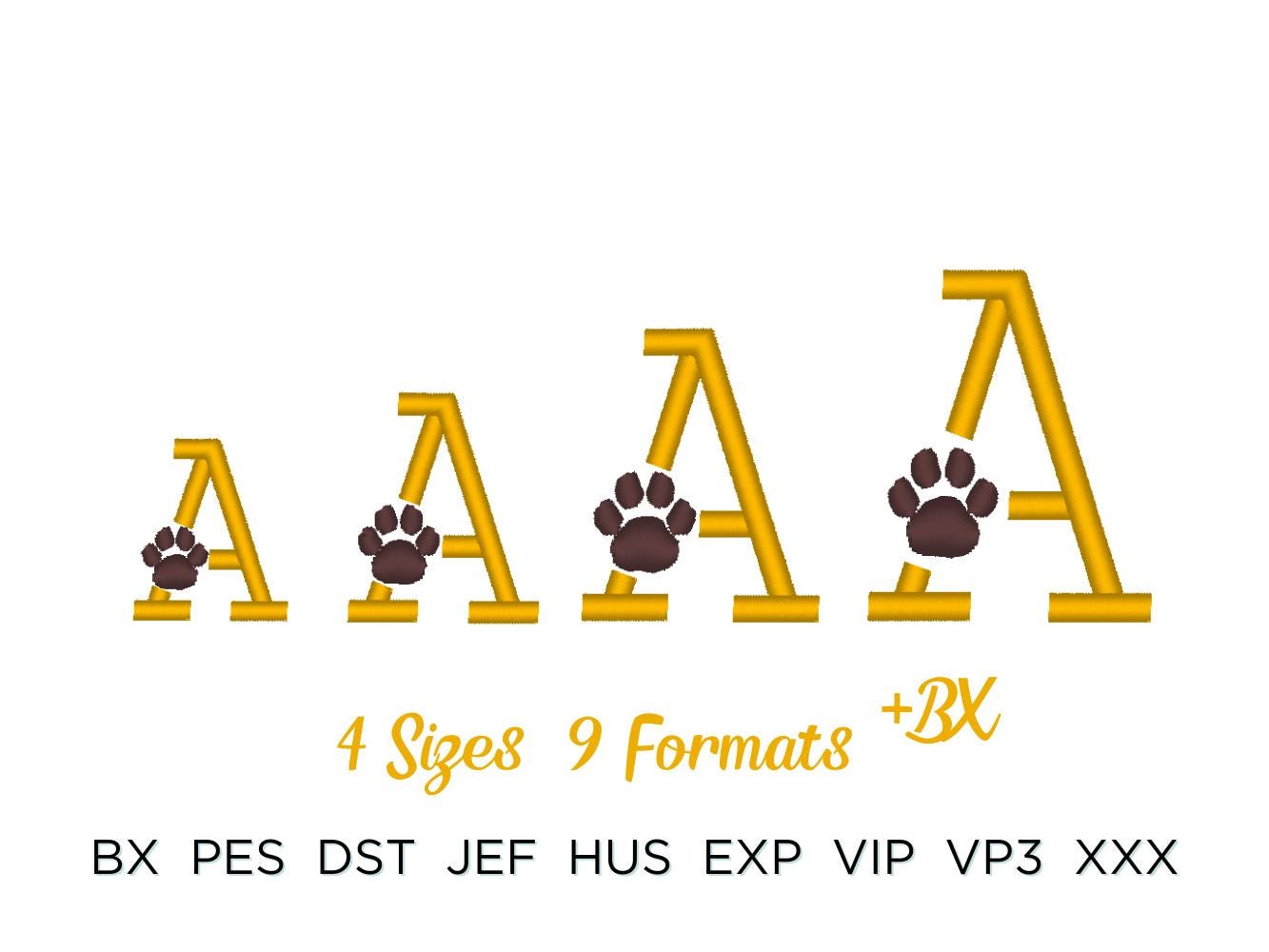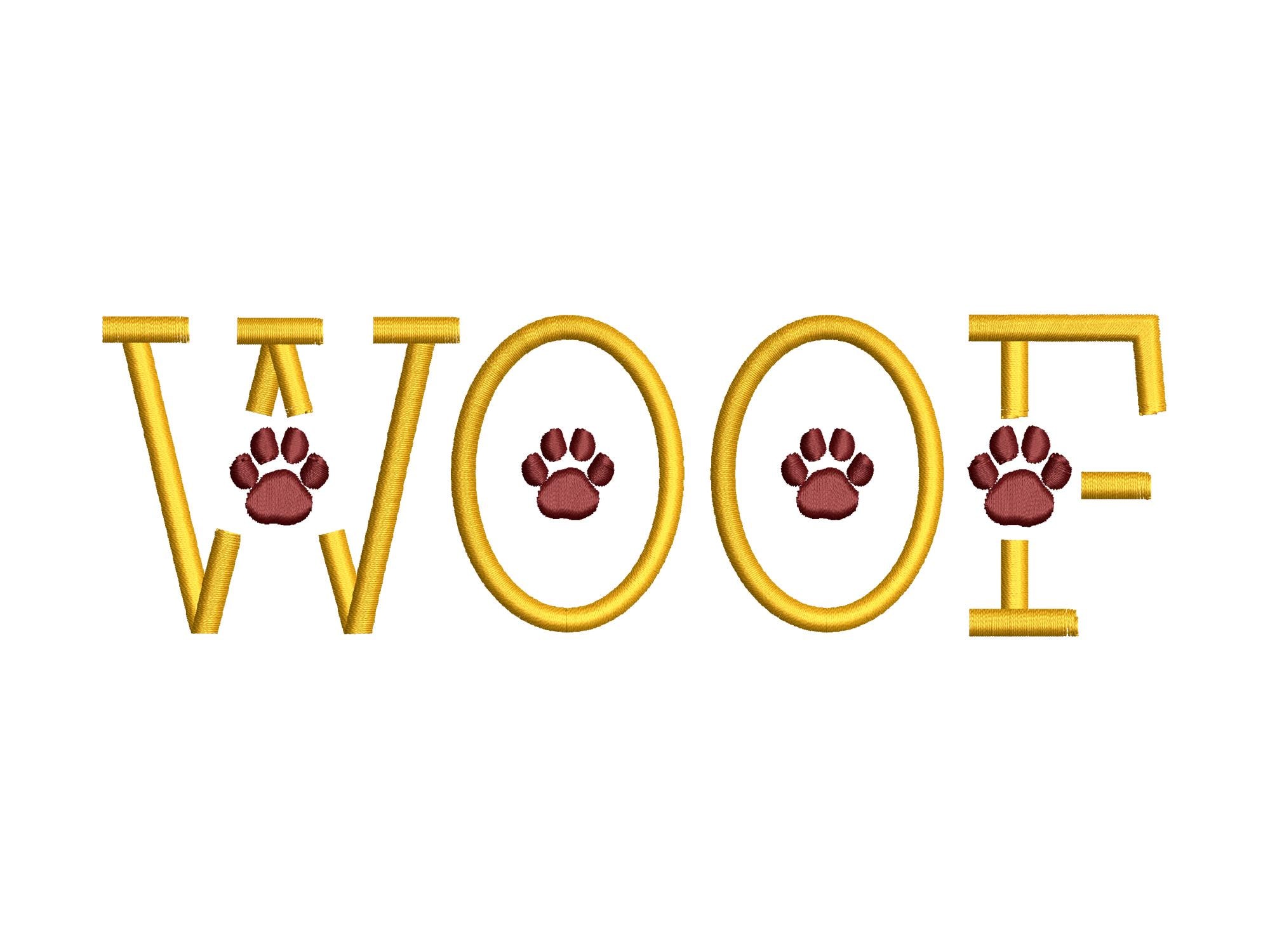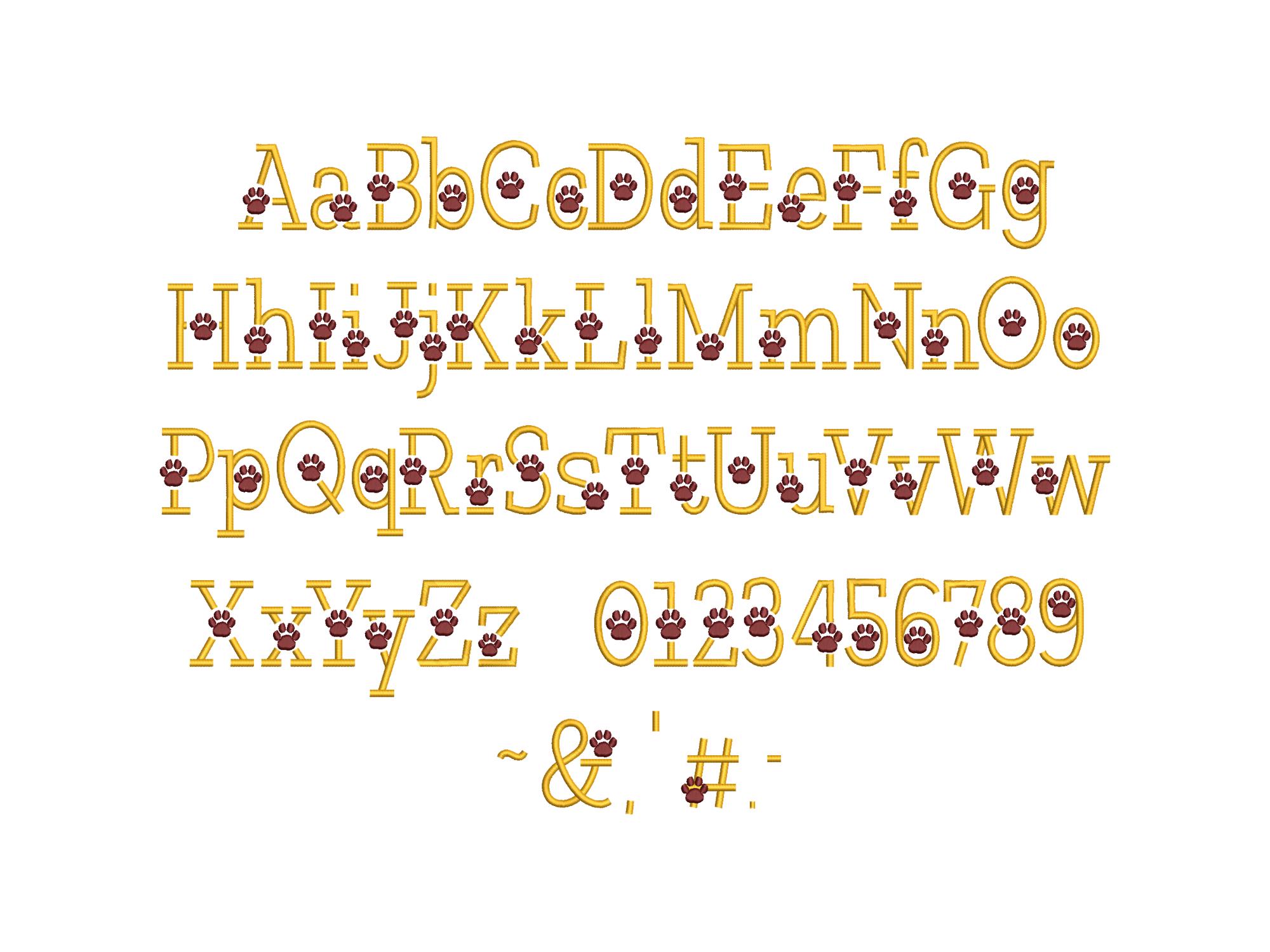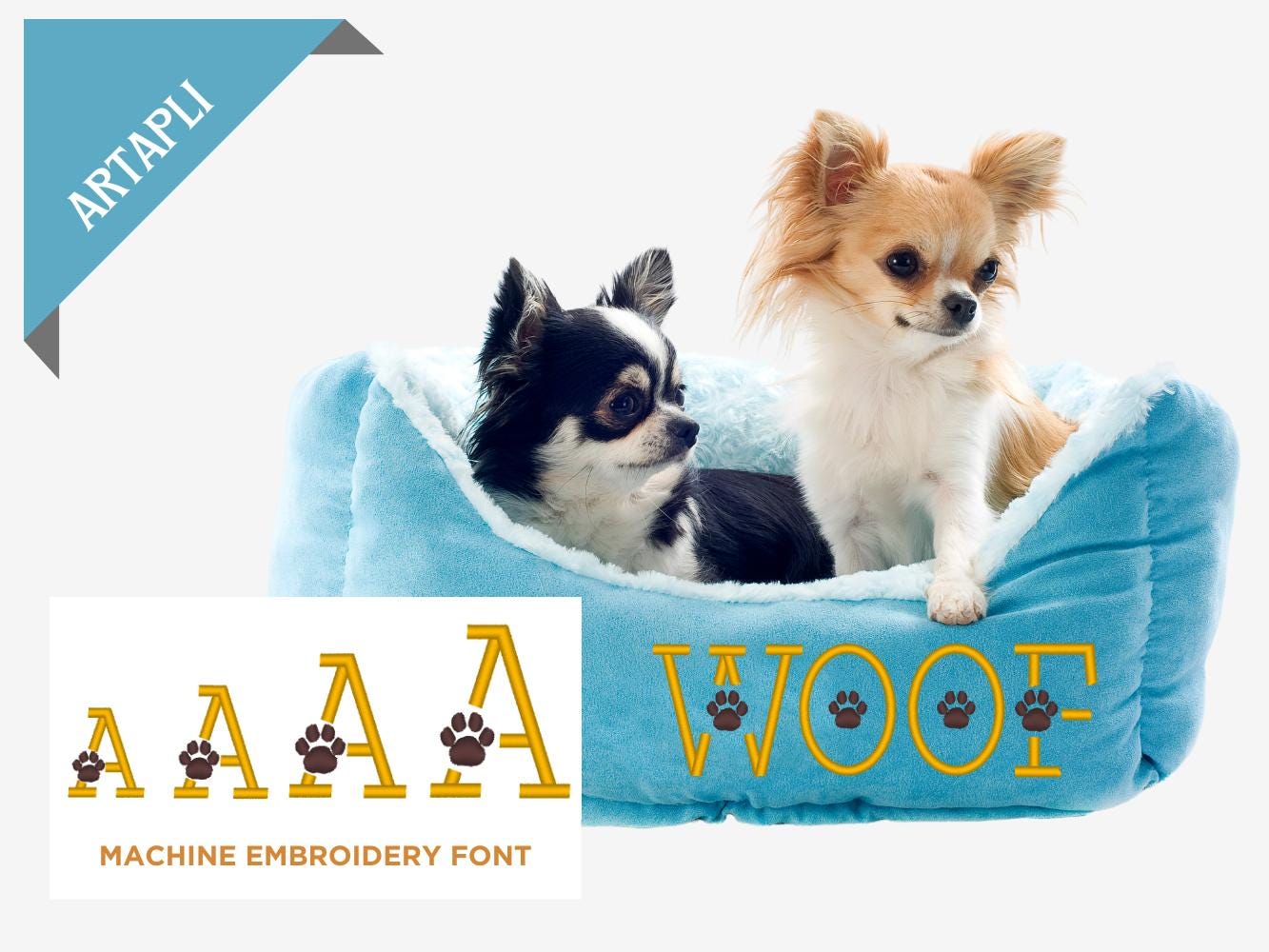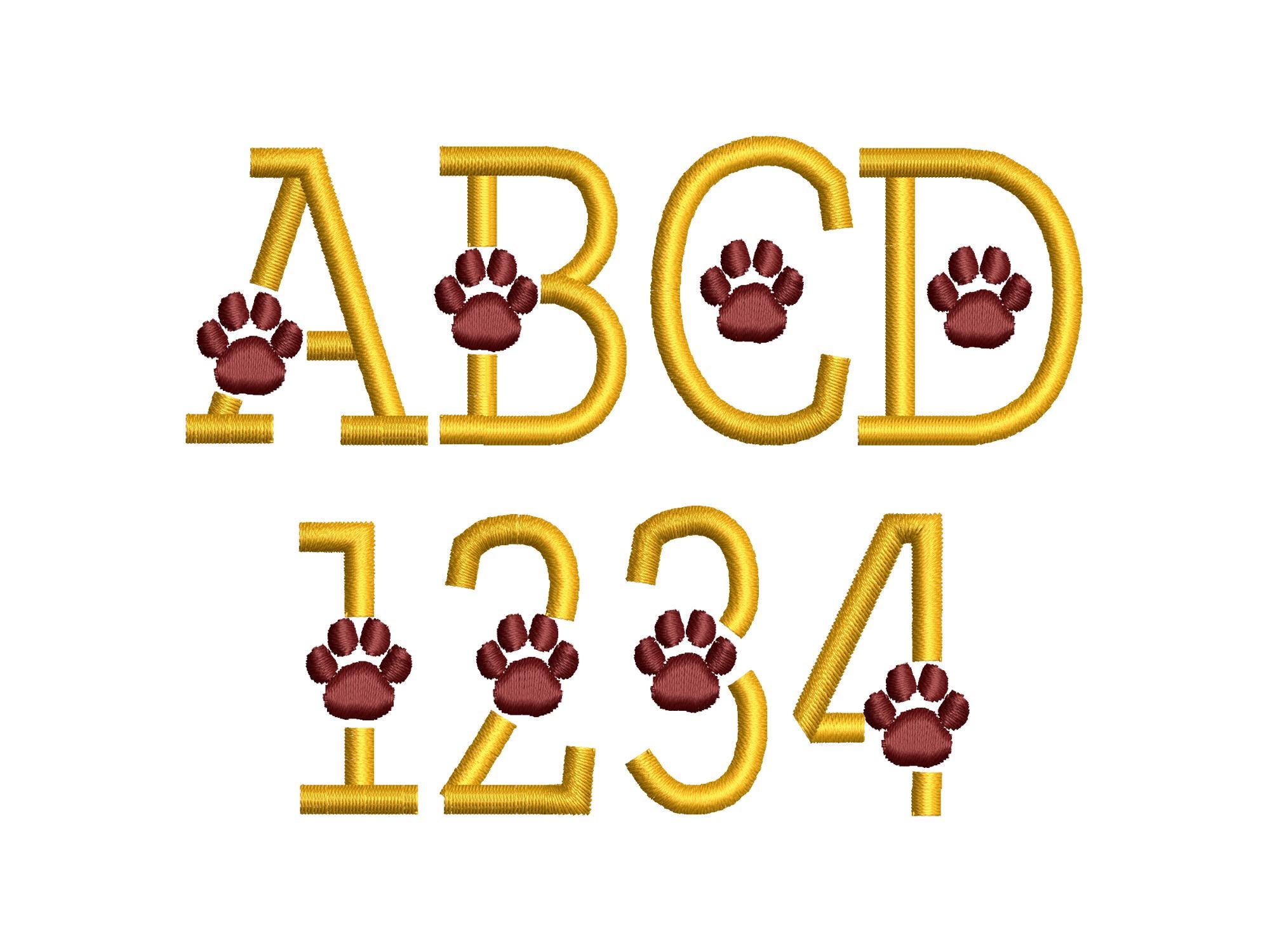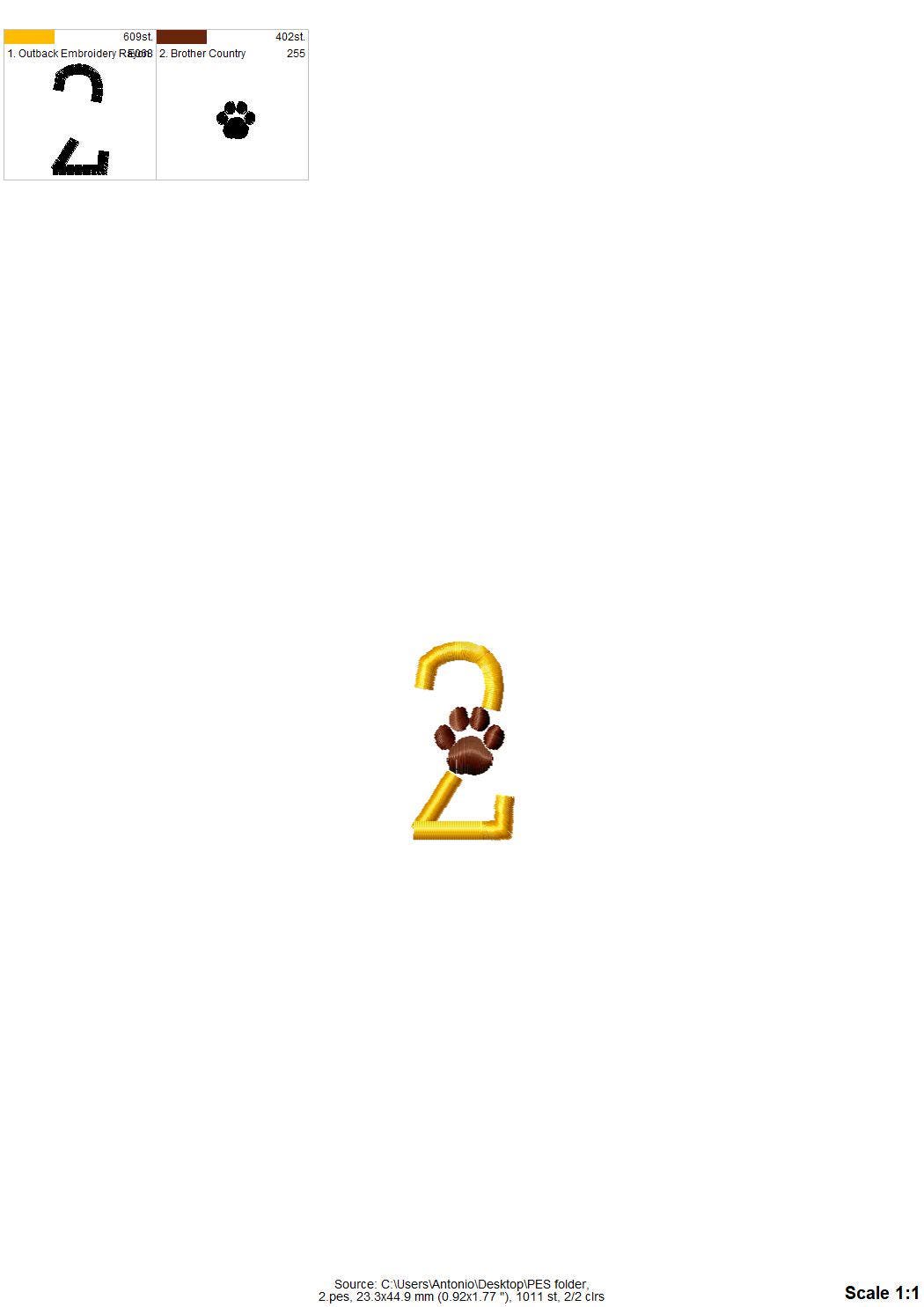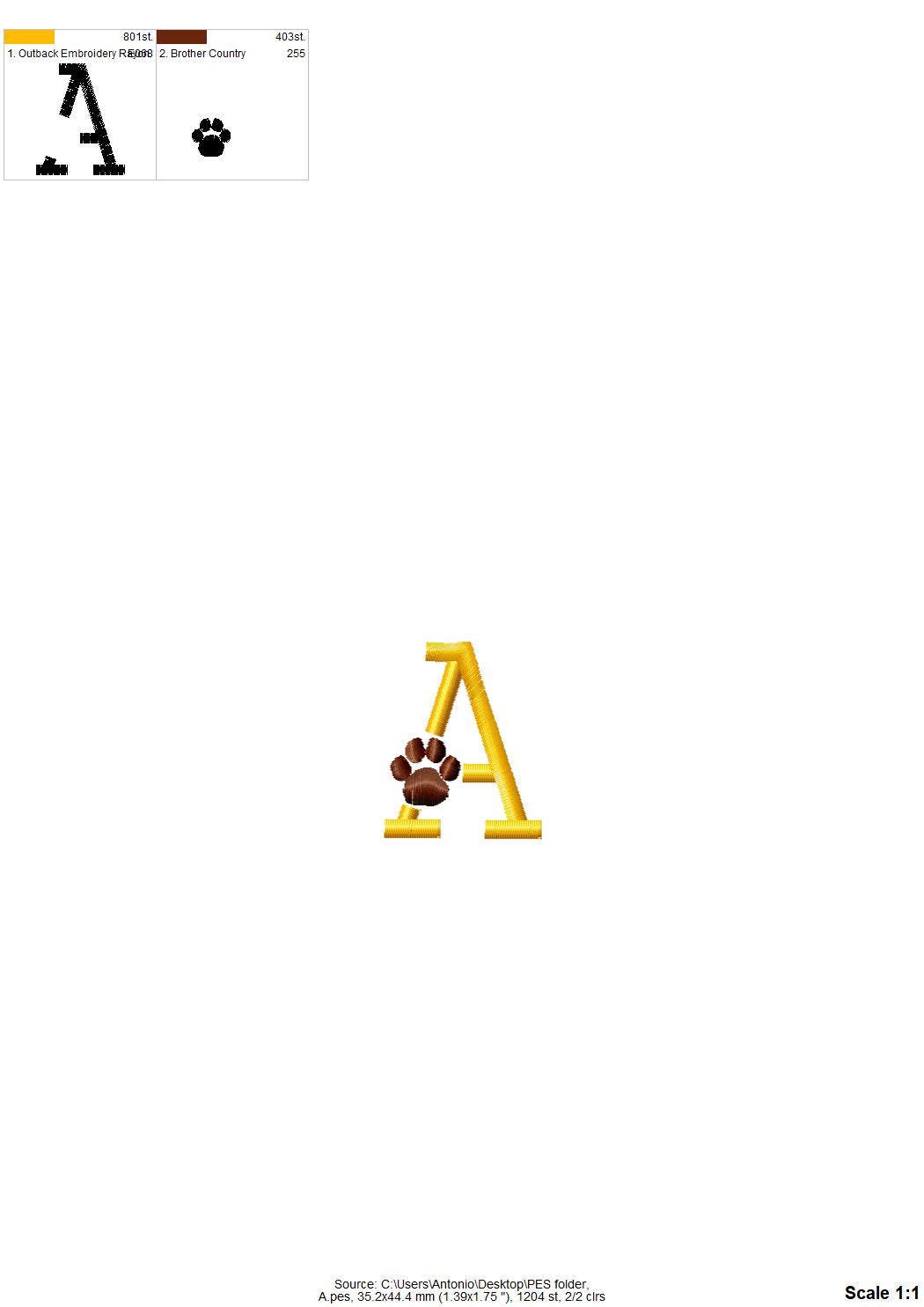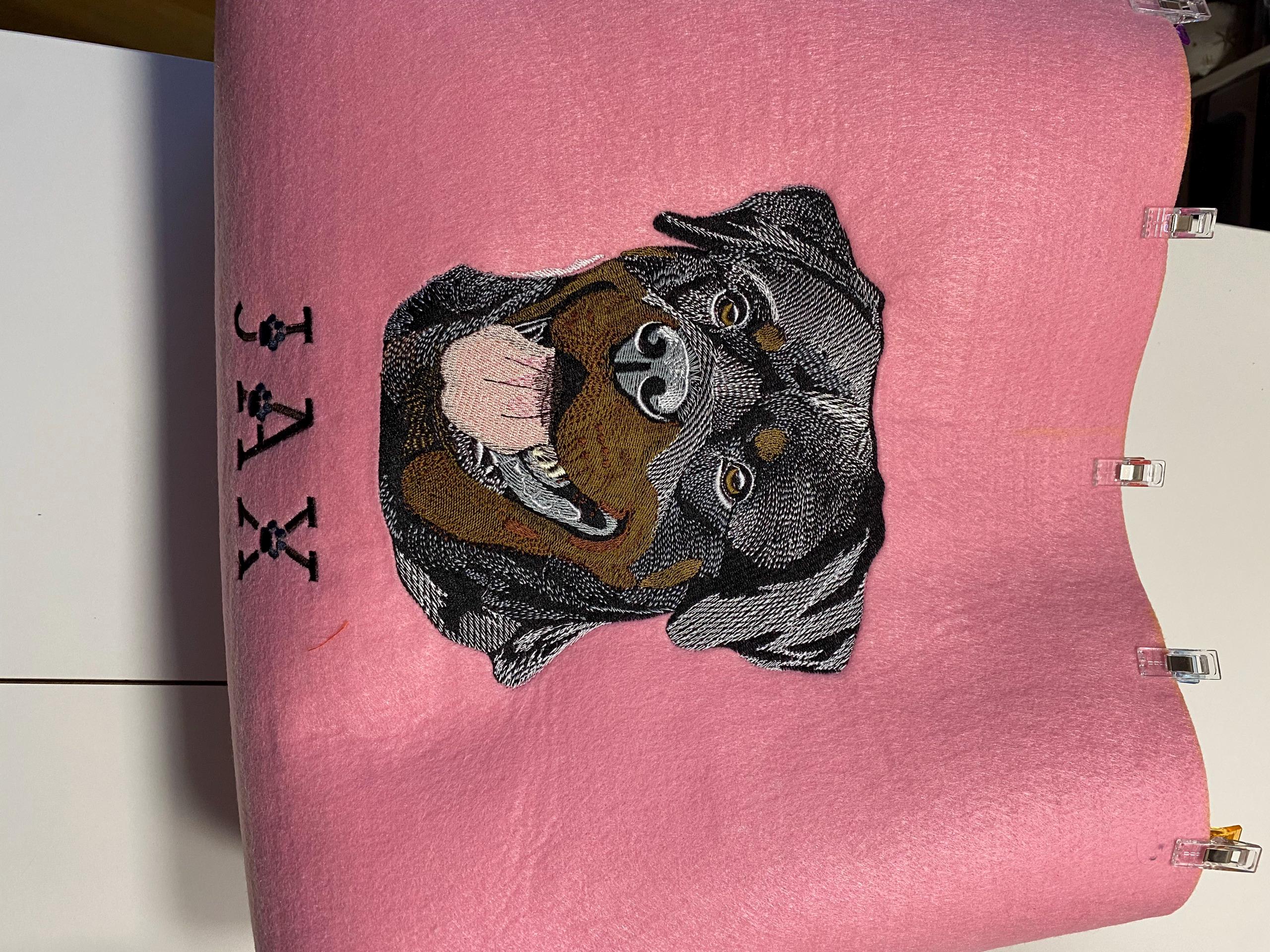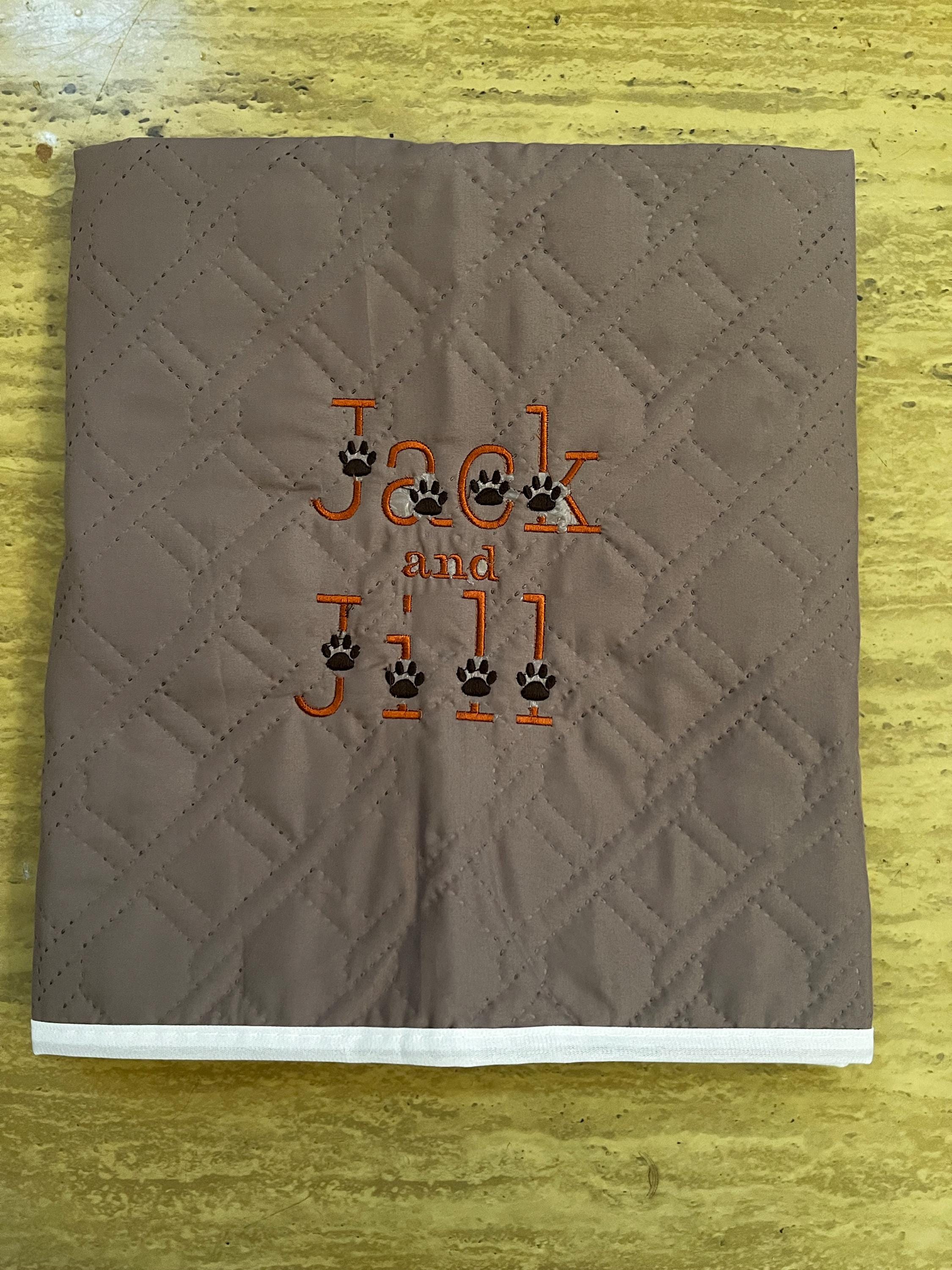
Paw print FONT satin stitch Block Font with Paw machine embroidery designs in assorted sizes monogram letters Cat Dog kids name BX included
Whole alphabet: uppercase and lowercase letters, numbers, and punctuation.